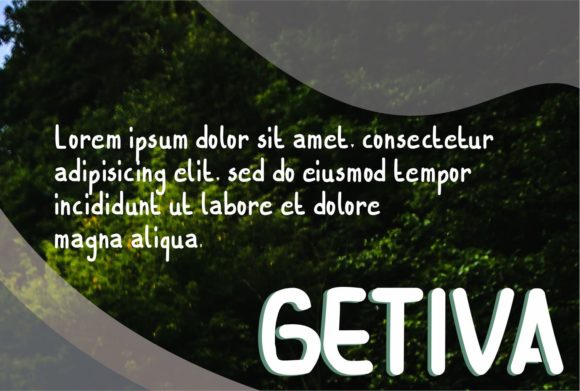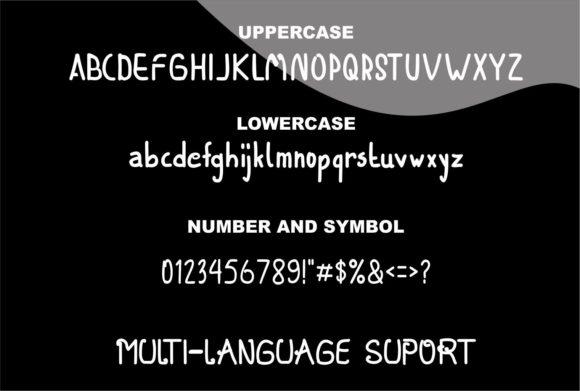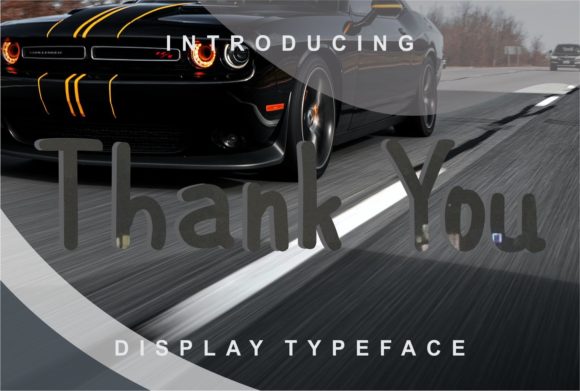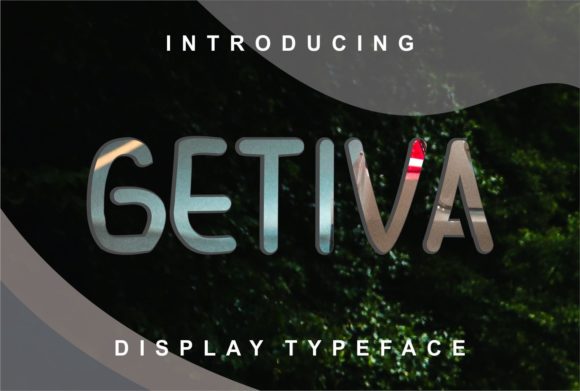
Introducing Getiva Font: The Ultimate Display Font for Stunning Designs
Are you tired of using the same old fonts for your designs? Look no further! Getiva Font is here to revolutionize your creative projects with its clean and adaptable display font. This versatile font is perfect for any designer, crafter, or artist looking to add a touch of elegance and sophistication to their work.
What Makes Getiva Font Stand Out?
Getiva Font is a game-changer in the world of typography. Its clean and modern design makes it perfect for a wide range of applications, from posters and flyers to prints and digital media. The font’s adaptability is one of its most striking features, allowing it to seamlessly integrate with any design style or theme.
With Getiva Font, the possibilities are endless! Whether you’re working on a commercial project or a personal craft, this font is sure to elevate your design to the next level. Here are just a few ways you can use Getiva Font to take your designs to new heights:
- Posters and Flyers: Create eye-catching posters and flyers that grab attention with Getiva Font’s bold and clean design.
- Print Designs: Use Getiva Font to add a touch of sophistication to your print designs, from business cards to brochures.
- Digital Media: Getiva Font is perfect for digital media, including social media graphics, website headers, and more.
- Crafting: Add a personal touch to your crafts, such as handmade cards, gift tags, and scrapbooking pages.
Key Features of Getiva Font
Getiva Font boasts a range of features that make it the perfect choice for designers and crafters. Some of its key features include:
- Clean and Modern Design: Getiva Font features a clean and modern design that’s perfect for creating stunning visuals.
- Adaptable: The font’s adaptability makes it suitable for a wide range of applications and design styles.
- High-Quality: Getiva Font is a high-quality font that’s designed to deliver crisp and clear results, even at large sizes.
Why Choose Getiva Font?
With so many fonts available, why choose Getiva Font? Here are just a few reasons why designers and crafters are falling in love with this amazing display font:
- Unique and Versatile: Getiva Font is a unique and versatile font that’s perfect for designers and crafters looking to add a touch of elegance to their work.
- Easy to Read: The font’s clean design makes it easy to read, even at small sizes.
- Time-Saving: With Getiva Font, you can create stunning designs in no time, saving you time and effort.
| Font Name | Getiva Font |
| Author | Letteria_studio |